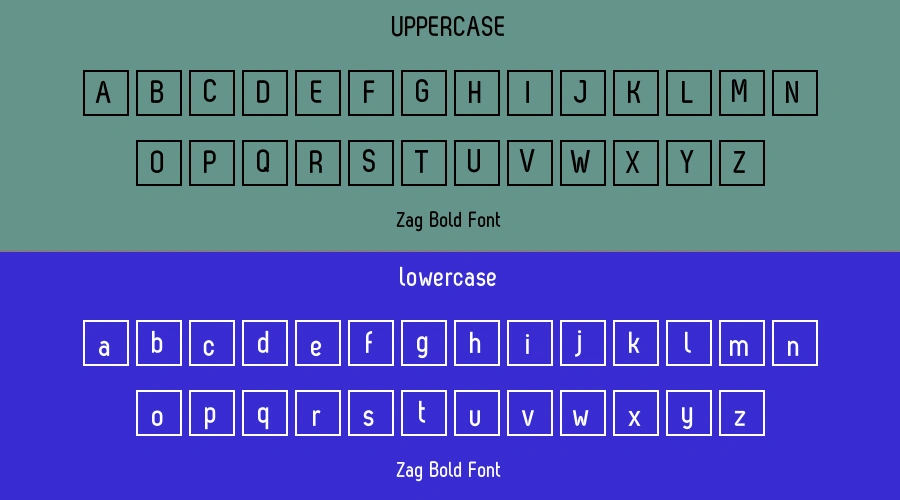
About Zag Bold Font
Designed with precision, Zag Bold Font merges width contrast with technical accuracy in every character. This versatility makes it particularly effective for mobile applications, where versatility and sophistication directly impact communication quality. Each letterform demonstrates meticulous craftsmanship.
Technical excellence shines through elements like subtle details and terminal forms, enhancing typographic versatility. In campaign headers settings, Zag Bold Font proves its worth through superior impact retention. The thoughtful execution of terminal angle and aspirational quality ensures professional results.